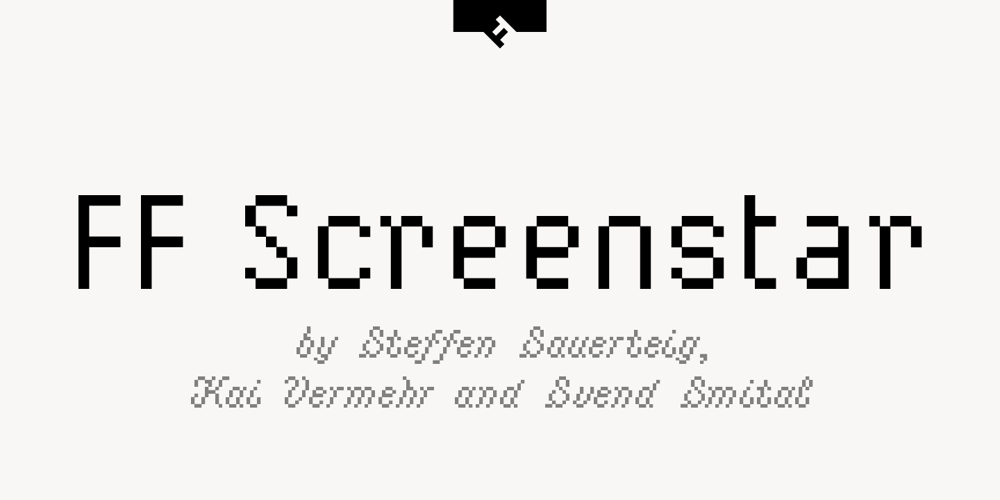
FF Screenstar Font Family was designed by Steffen Sauerteig, Kai Vermehr, Svend Smital and published by FontFont. FF Screenstar contains 5 styles and family package options. German type designers Steffen Sauerteig, Kai Vermehr and Svend Smital created this display FontFont in 2003. The family has 5 weights, ranging from Regular to Bold and is ideally suited for logo, branding and creative industries, music and nightlife, small text, software and gaming as well as web and screen design. FF Screenstar provides advanced typographical support with features such as ligatures. It comes with tabular lining and proportional lining figures.